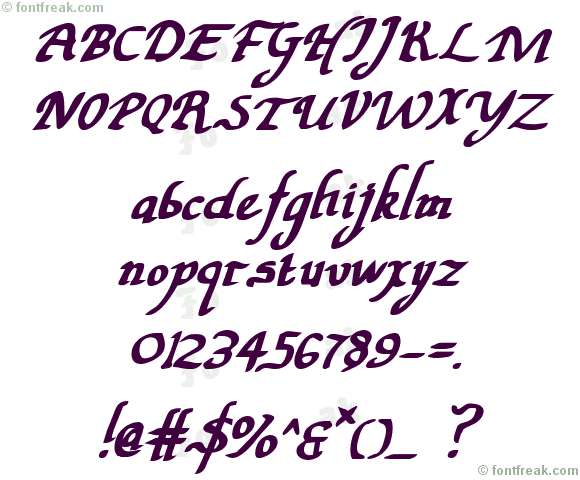
About Valley Forge
Valley Forge, crafted by Iconian Fonts, is a striking display font that captures attention with its unique italicized design. Released in 2008, this freeware font embodies a blend of bold and left-aligned elements, making it stand out in various design contexts. The strokes exhibit a moderate weight, which provides a balanced contrast that enhances readability while maintaining an artistic flair. The spacing is thoughtfully executed, ensuring that each character flows seamlessly into the next, resulting in a visually appealing typeface that commands presence.
This font is particularly well-suited for a range of creative applications. It shines in wedding invitations, where its elegant curves can evoke a sense of romance. Additionally, Valley Forge is an excellent choice for movie posters, lending a dramatic touch that captures the essence of cinematic storytelling. Its decorative elements make it ideal for restaurant menus, where it can add character and sophistication to the dining experience. Graphic designers will also find this font useful in branding projects, as its distinct style can effectively convey a brand’s personality.
The primary audience for the Valley Forge font encompasses graphic designers, small business owners, and content creators looking to elevate their visual communications. Its versatility and artistic qualities allow it to be used across various platforms, from digital to print.
What sets the Valley Forge font apart is its ability to merge boldness with elegance, making it a powerful tool for any designer’s toolkit. The combination of its italic style, distinctive outlines, and overall aesthetic appeal ensures that it stands out in a crowded font marketplace. For those seeking to enhance their projects, the Valley Forge font free download offers an opportunity to incorporate this unique typeface into their work, enriching their designs with creativity and flair.